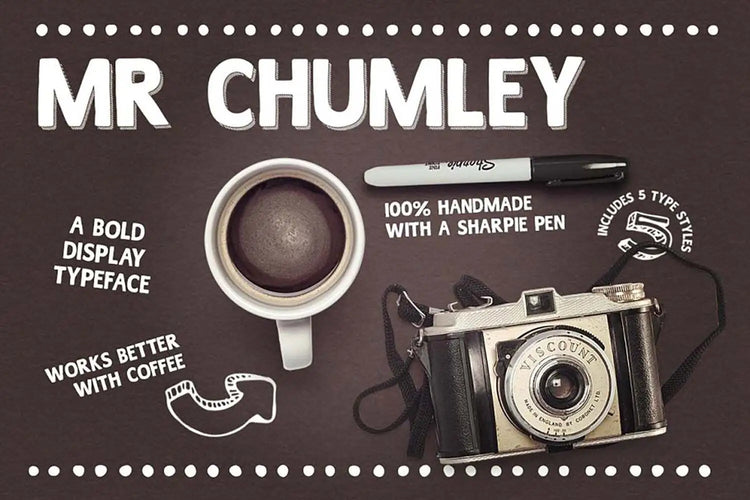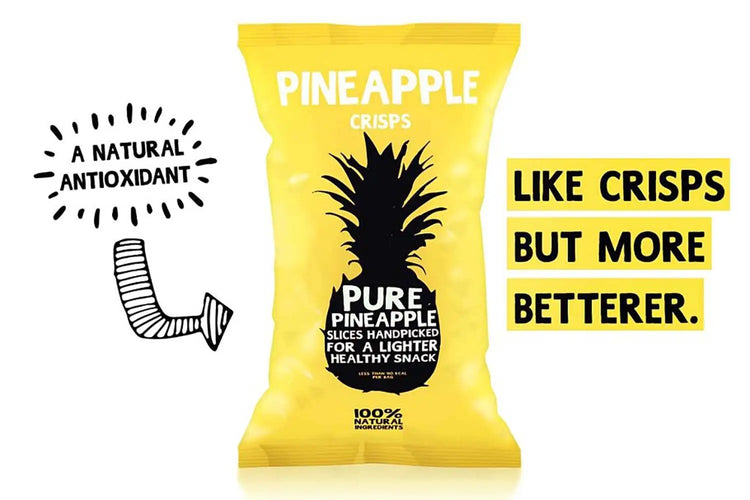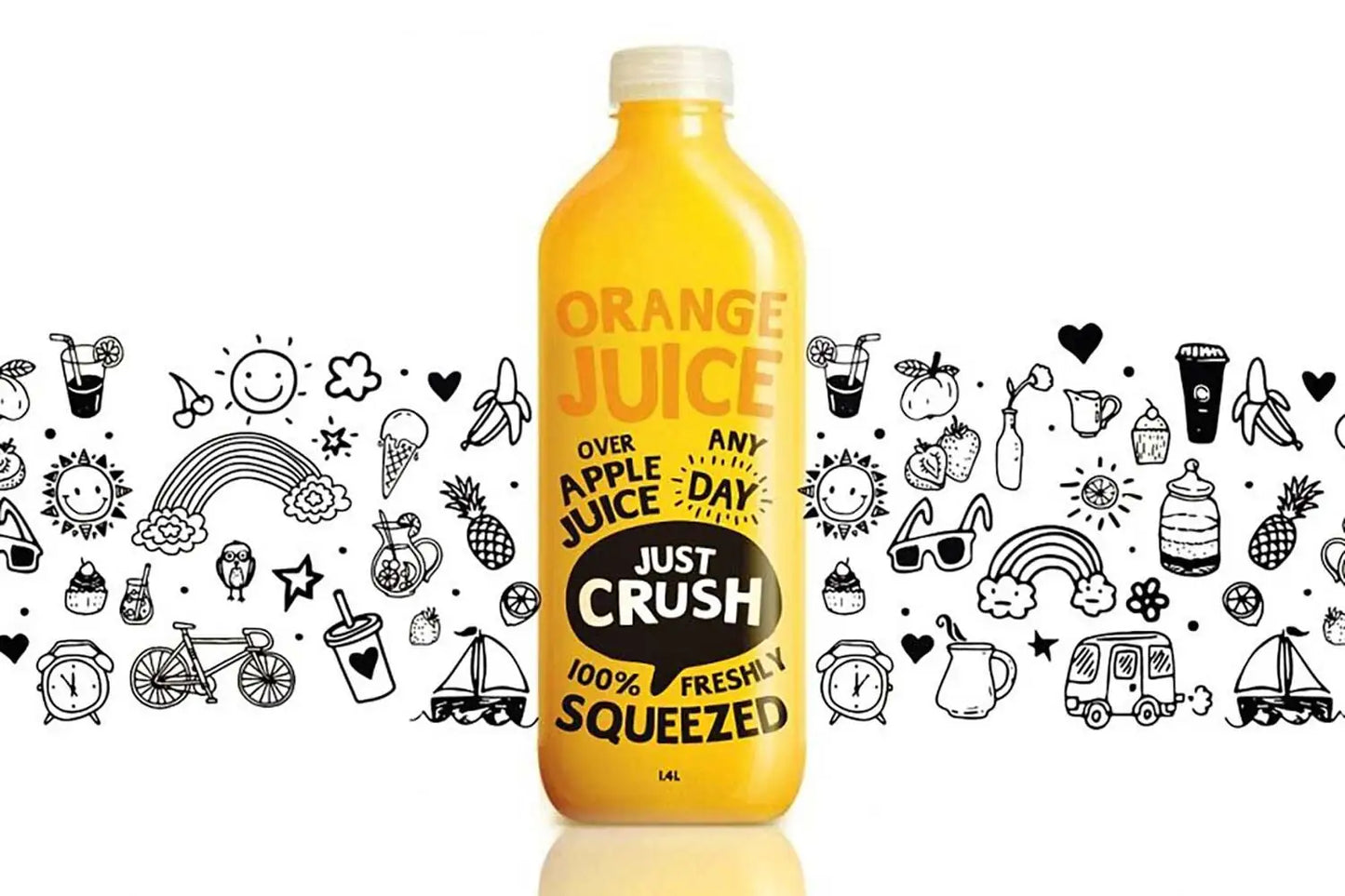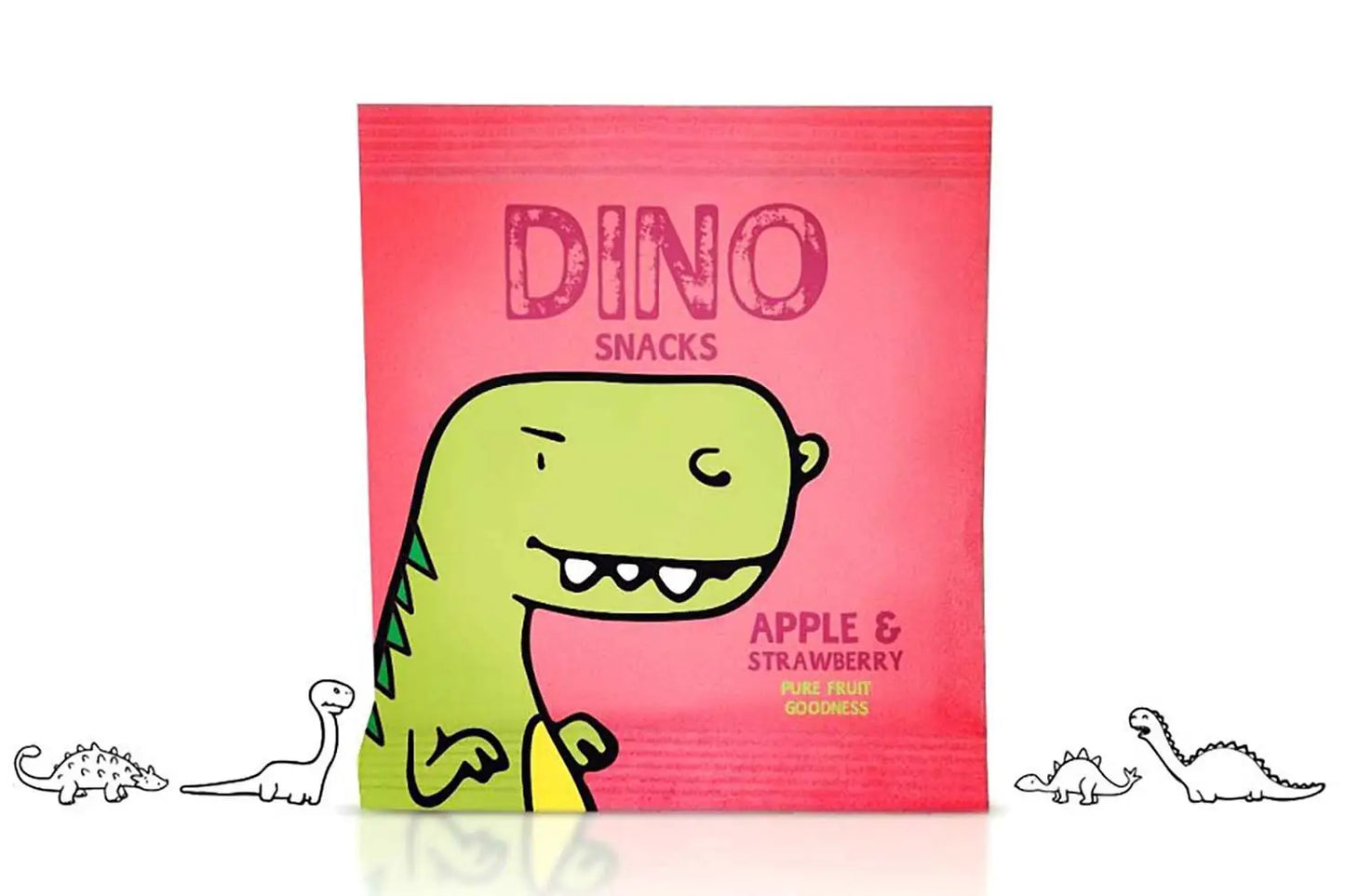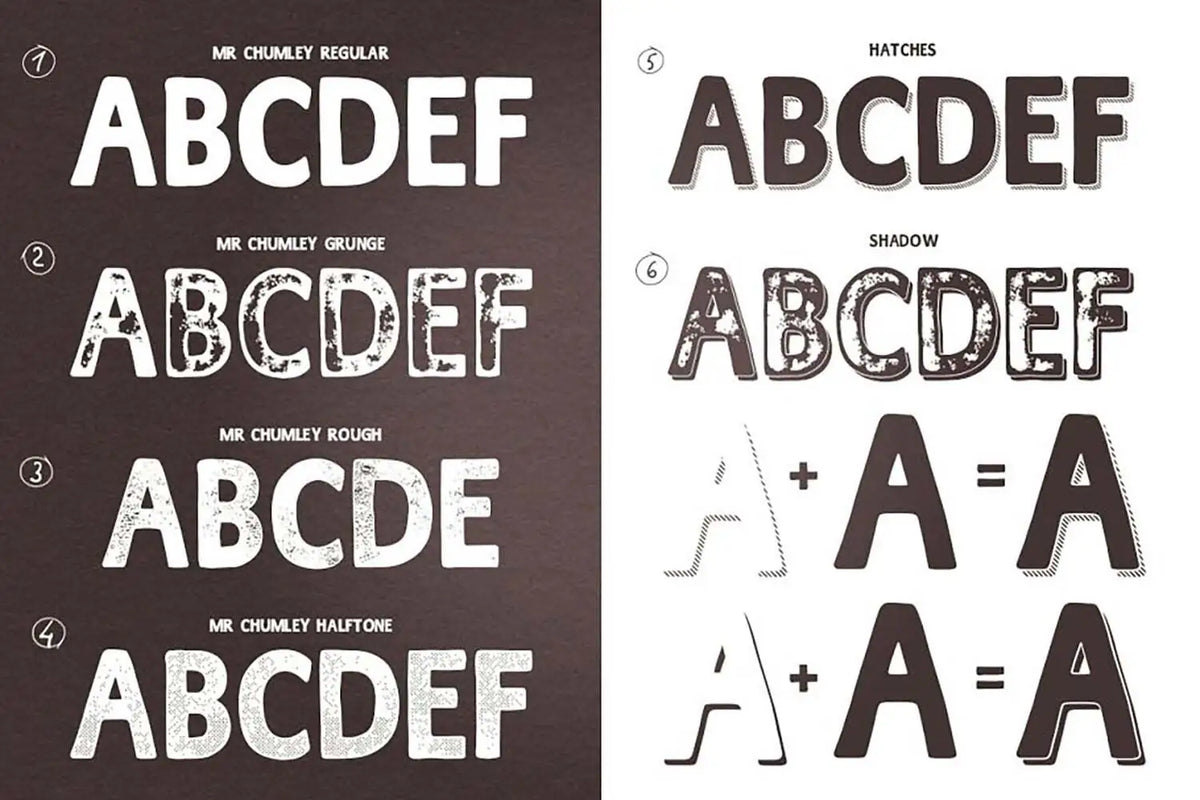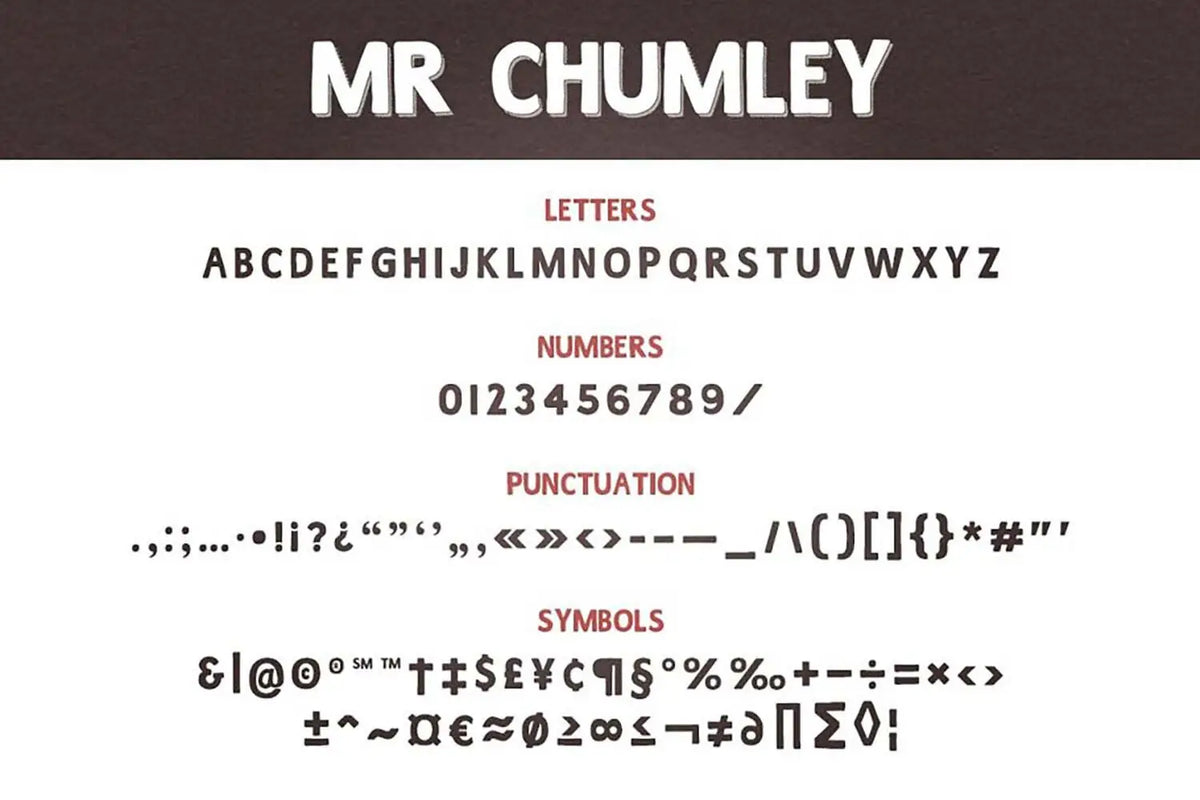
Mr Chumley — Display Sans Serif Font
About Mr Chumley
Meet Mr. Chumley, the font with a personality as bold as a circus ringmaster. This typeface is here to inject some fun into your design game.
Now, imagine crafting this font with nothing but a Sharpie pen and a piece of paper. Yep, it's that hand-lettered and quirky, giving your work that charming handmade touch.
Mr. Chumley thrives in the spotlight, especially when it comes to headlines at 16 points or higher. Posters, book jackets, packaging – you name it, and Mr. Chumley's bold look will steal the show.
But wait, there's more! Mr. Chumley isn't just one flavour; it's a whole font buffet. You get regular, rough, grunge, halftone, shadow, and hatches styles. Mix and match to create your unique typographic masterpiece.
With around 229 glyphs, including uppercase letters, numbers, punctuation, and a selection of European characters, Mr. Chumley is here to make your design life easier.
If Mr. Chumley font were a celebrity
If Mr. Chumley strutted down the red carpet as a celebrity, you can bet your quirky design projects it would be John Candy stealing the spotlight. Yep, they share that same bold and fresh personality.